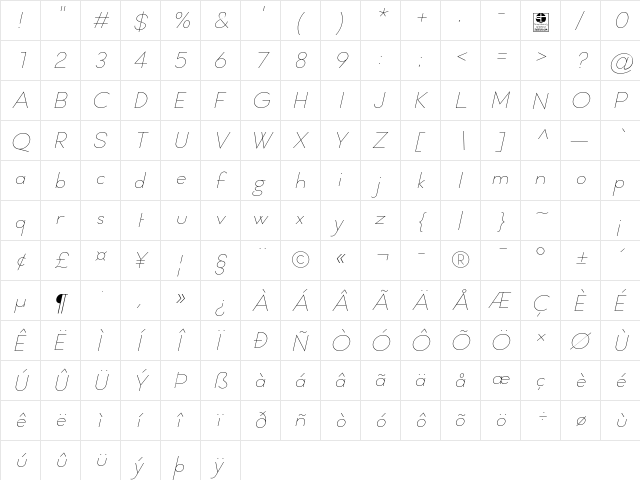
Typo Formal Light Demo Italic Font Preview
| Foundry | StudioTypo |
| Designer | Mehmet Abac |
Design Context for Typo Formal Light Demo Typeface
Typo Formal Light Demo takes a measured approach to typography — its balanced proportions and neutral character make it a reliable workhorse for both digital and print work. The dynamic lean of this cut emphasises speed and emphasis in any layout. Its slender proportions lend an understated elegance to any composition.
Pro Tip: Use Typo Formal Light Demo for emphasis, pull quotes, and subheadings where its slanted energy can add rhythm to the layout.